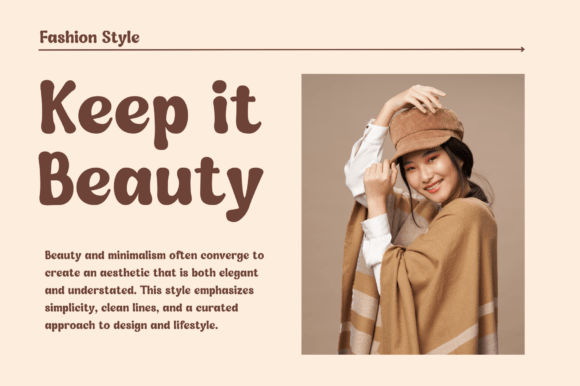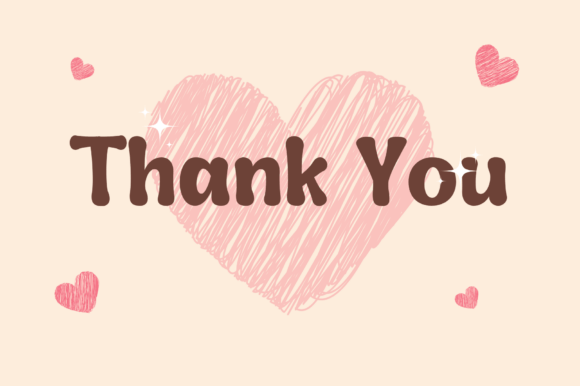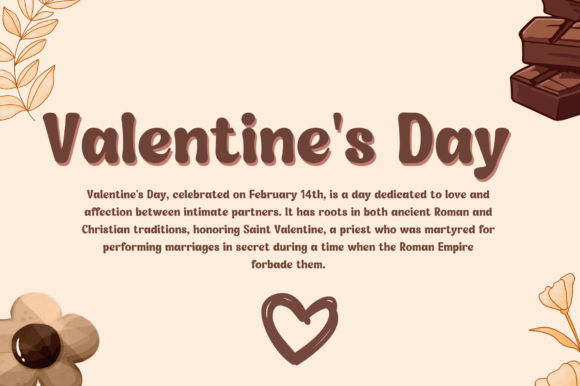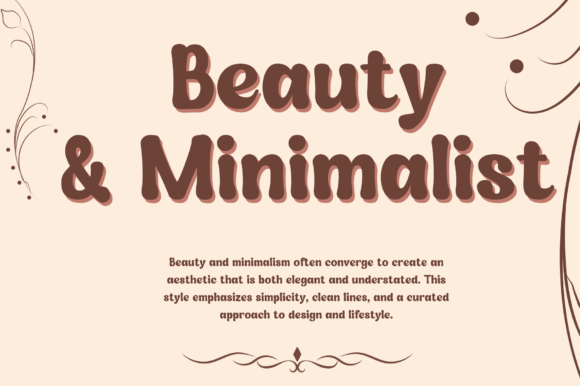
Introducing Gamon: The Delightful Cute Groove Font for Playful Designs
Are you looking for a font that can add a touch of fun and friendliness to your designs? Look no further than Gamon, a delightful Cute Groove Font that brings playful charm to your creations. With its smooth, rounded edges and whimsical groove style, Gamon is perfect for projects that need a cheerful personality.
What Makes Gamon Special?
Gamon features a unique and playful design that sets it apart from other fonts. Its smooth, rounded edges give it a soft and approachable feel, while its whimsical groove style adds a touch of fun and creativity. This font is designed to bring a smile to your audience’s face, making it perfect for projects that need to connect with a younger audience or convey a sense of friendliness.
Gamon is a versatile font that can be used for a wide range of projects, including:
- Children’s Books: Add a touch of whimsy and fun to your children’s book with Gamon’s playful design.
- Branding: Use Gamon to create a friendly and approachable brand identity that connects with your audience.
- Packaging: Add a cheerful personality to your product packaging with Gamon’s bold yet soft aesthetic.
- Social Media Graphics: Use Gamon to create eye-catching social media graphics that stand out from the crowd.
- Greeting Cards: Add a touch of fun and friendliness to your greeting cards with Gamon’s playful design.
Designed with Versatility and Ease of Use in Mind
Gamon is designed to be easy to use and versatile, making it perfect for designers and crafters of all levels. Its bold yet soft aesthetic ensures readability while maintaining a playful appeal, making it perfect for a wide range of projects.
Pairing Suggestions
Gamon pairs beautifully with pastel palettes and creative layouts, making it easy to create stunning designs. Here are some pairing suggestions:
- Pastel Colors: Pair Gamon with soft pastel colors like pale pink, baby blue, and mint green to create a sweet and playful design.
- Creative Layouts: Use Gamon with creative layouts like zig-zag patterns, polka dots, and stripes to add visual interest to your design.
Why Choose Gamon?
There are many reasons why you should choose Gamon for your next project:
- Unique Design: Gamon features a unique and playful design that sets it apart from other fonts.
- Versatility: Gamon can be used for a wide range of projects, from children’s books to branding and packaging.
- Ease of Use: Gamon is designed to be easy to use, making it perfect for designers and crafters of all levels.
- Playful Appeal: Gamon’s bold yet soft aesthetic ensures readability while maintaining a playful appeal.